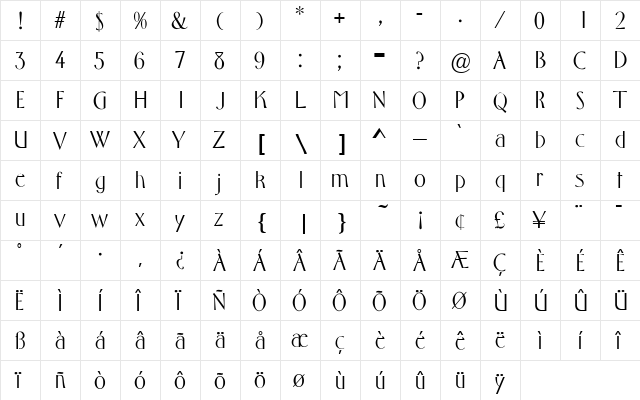
Florentine Regular Font Preview
Florentine Regular
Design Context for Florentine Typeface
Florentine takes a measured approach to typography — its balanced proportions and neutral character make it a reliable workhorse for both digital and print work.